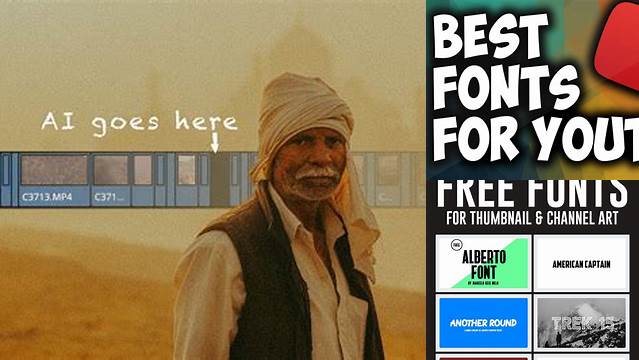
Best Fonts For YouTube: Boost Your YouTube Videos
Choosing the right font for your YouTube videos is crucial for engaging your audience and conveying your message effectively. Your font choices can significantly impact how viewers perceive your content, influencing readability, brand identity, and overall video aesthetics. In this article, we'll dive deep into the world of fonts, exploring the best options for YouTube videos, and providing actionable tips to help you make the right choices for your channel. Let's get started, guys!
Why Fonts Matter for YouTube Videos
Fonts are more than just letters; they are visual communicators. The fonts you use in your YouTube videos create a visual identity, enhancing the overall viewing experience. Think of fonts as the voice of your text – they add personality and tone to your content. Let's break down why fonts are so important:
Readability: The primary function of text in your videos is to convey information. If your audience can't easily read your text, your message gets lost. Choosing fonts that are clear and legible ensures your viewers can focus on your content, not struggling to decipher the words. Sans-serif fonts, known for their clean lines, are generally more readable on screens, making them a popular choice for digital content. Serif fonts, with their decorative strokes, can also work well, but it's essential to pick those that remain clear even at smaller sizes or when displayed quickly.
Brand Identity: Your font choices can be a powerful tool for branding. Consistency in font usage across your videos helps create a cohesive visual identity, making your channel instantly recognizable. By using specific fonts consistently, you build a visual signature that viewers associate with your brand. This consistency extends to your thumbnails, intro/outro sequences, and on-screen text. Consider fonts that reflect your channel's personality and niche. For example, a tech channel might opt for modern, clean fonts, while a creative channel could use more artistic and unique options.
Engagement: The right font can significantly boost viewer engagement. Fonts that align with your video's tone and style can keep viewers hooked. Visually appealing fonts make your content more interesting, encouraging viewers to watch longer. Use fonts strategically to emphasize key points or add visual flair. Motion graphics and dynamic typography can enhance engagement, but ensure the fonts you choose are still easy to read when animated. Experiment with different font styles and sizes to find what resonates best with your audience.
Professionalism: Using well-chosen fonts elevates the perceived professionalism of your videos. Sloppy font choices can make your content look amateurish, while polished typography signals quality and attention to detail. High-quality fonts convey that you take your content seriously. Avoid overly decorative or trendy fonts that may distract viewers. A clean, professional font choice demonstrates that you value your audience's time and are committed to delivering top-notch content. Consider investing in premium fonts for a more polished look, or explore free alternatives that offer a similar level of quality.
In essence, fonts are a crucial element of your video’s visual language. Choosing the right fonts not only improves readability but also contributes to your brand identity and overall viewer engagement. Let's explore some of the best font categories and specific fonts that can elevate your YouTube videos.
Top Font Categories for YouTube Videos
To help you narrow down your choices, let’s explore the top font categories that work exceptionally well for YouTube videos. Each category has a distinct style and impact, so understanding them will guide you in selecting the perfect fit for your content. Keep in mind, the best font category often depends on the tone and subject matter of your videos. Finding the right match is crucial for making a lasting impression on your viewers.
1. Sans-Serif Fonts
Sans-serif fonts are the workhorses of digital typography, known for their clean, modern, and highly readable design. These fonts lack the small decorative strokes (serifs) found in serif fonts, making them ideal for on-screen viewing. Their simplicity ensures that text remains clear even at smaller sizes and resolutions, a key factor for YouTube videos watched on various devices. Sans-serif fonts convey a sense of straightforwardness and efficiency, making them a solid choice for channels focusing on educational content, tutorials, or vlogs.
Why they work well:
- Readability: Sans-serif fonts are designed for clarity, making them perfect for on-screen text.
- Modern Look: They offer a contemporary aesthetic that appeals to a wide audience.
- Versatility: They work well in headlines, body text, and captions.
Popular Sans-Serif Fonts:
- Roboto: A widely used font family that’s clean, modern, and highly legible. Roboto’s various weights and styles make it suitable for diverse applications within your videos.
- Open Sans: Another popular choice, Open Sans is known for its friendly and approachable feel, making it great for content aimed at a broad audience.
- Montserrat: A geometric sans-serif that exudes sophistication and clarity, perfect for headings and titles.
Choosing the best fonts for your YouTube videos is an essential part of creating engaging and professional content. Your font choices impact readability, brand identity, and overall viewer experience. By considering the tips and recommendations in this article, you can select fonts that enhance your message and captivate your audience. Remember to prioritize readability, align fonts with your brand, and use them consistently. With the right fonts, you can elevate your videos and make a lasting impression on your viewers. So, go ahead, guys, and make your videos shine with the perfect typography!